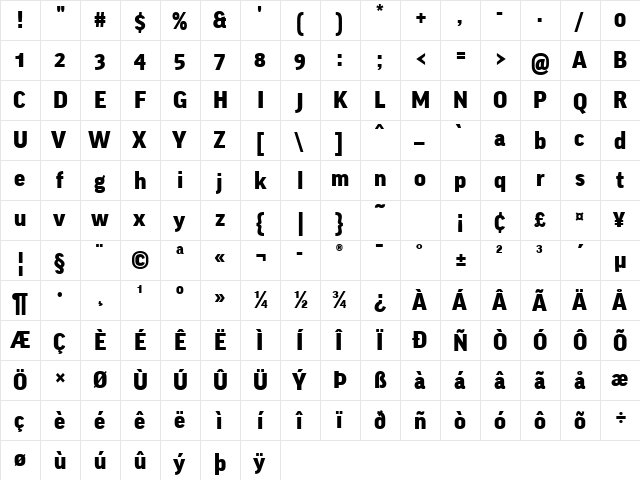
GoodOSF-Black Regular
| Foundry | FSI Fonts und Software GmbH |
| Designer | Lukasz Dziedzic |
Design Context for GoodOSF-Black Typeface
GoodOSF-Black takes a measured approach to typography — its balanced proportions and neutral character make it a reliable workhorse for both digital and print work.